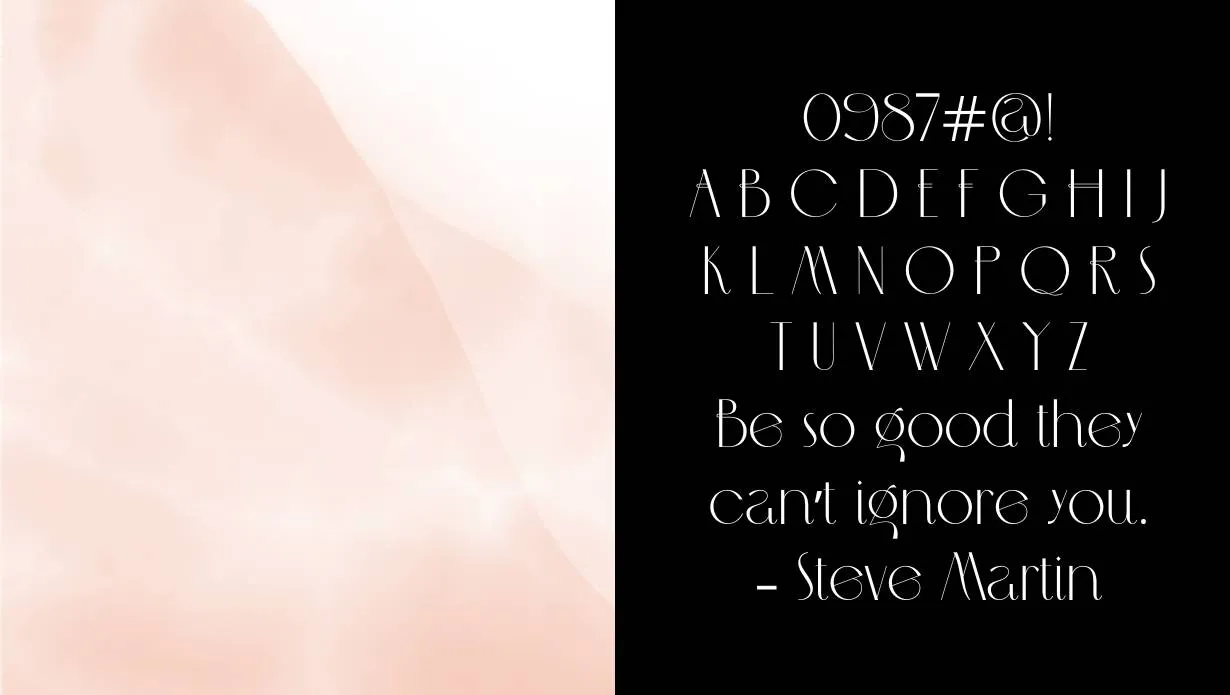
Mclassic Font is a fancy typeface that was designed by Mario de Oliveira in 1997. The font was created with the intention of being used for display projects. This makes it a versatile font that can be used for a variety of purposes. This Font is available in both TTF and OTF formats.
The Font includes its limited character set and lack of kerning pairs. Additionally, the font does not work well in smaller sizes. However, its unique features make it a good choice for printing projects. Overall, this Font is a versatile and stylish typeface that is well-suited for a variety of uses.
Mclassic Font Family